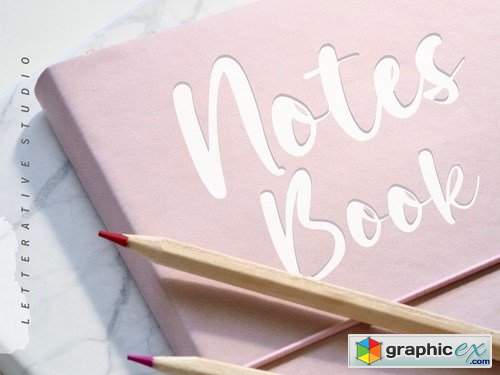
Daily Feather Script Font
Introducing by Letterative Studio : Daily Feather Font
Daily Feather is a Modern Calligraphy Font Daily Feather is perfect for product packaging, branding project, megazine, social media, wedding, or just used to express words above the background. This font includes : TTF and OTF Daily Feather also multilingual support